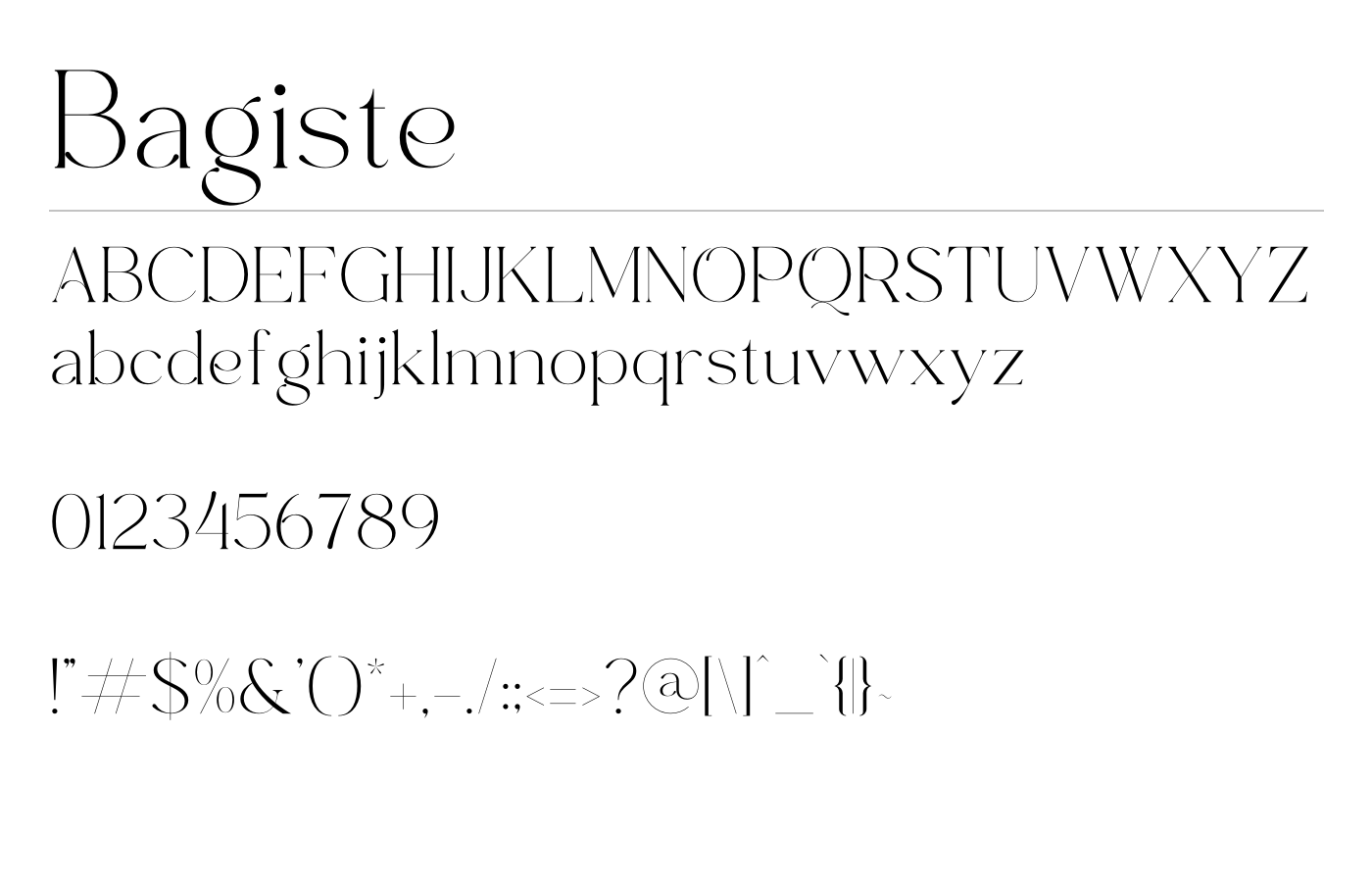
Bagiste is an elegant serif font with a modern Didone style, characterized by its high contrast between thin and thick strokes and delicate, refined serifs. Its tall, narrow letterforms and stylish details give it a sophisticated and luxurious feel, making it ideal for upscale branding, editorial headlines, and fashion-focused designs. This font works best where elegance and a touch of classic refinement are desired to create a striking, memorable impression.
Bagiste Font
About Bagiste Font